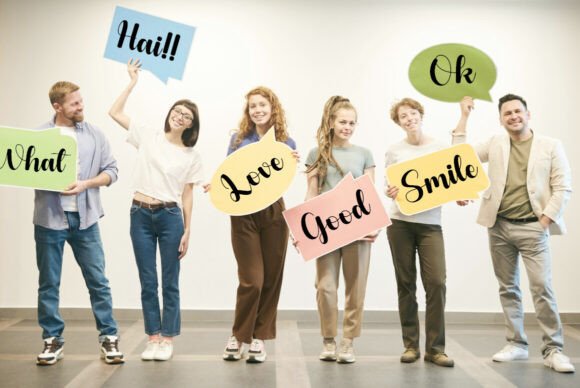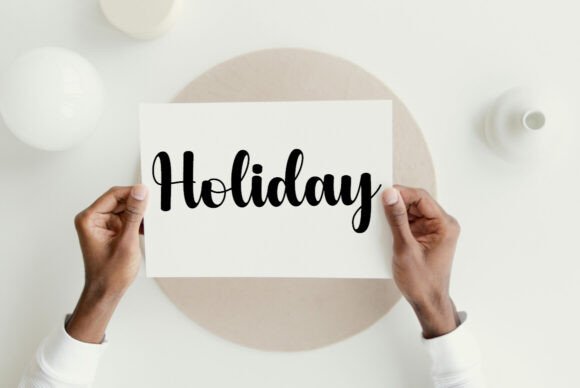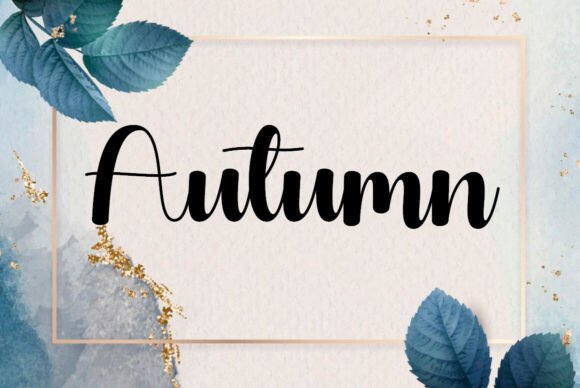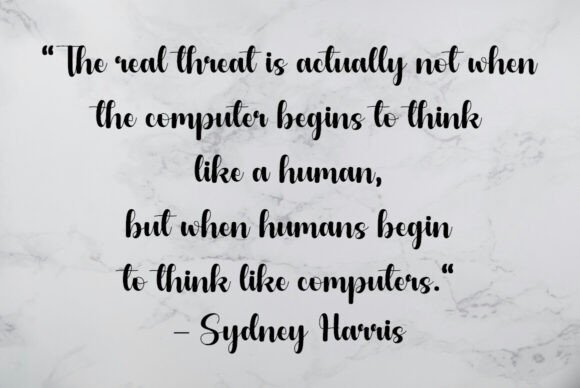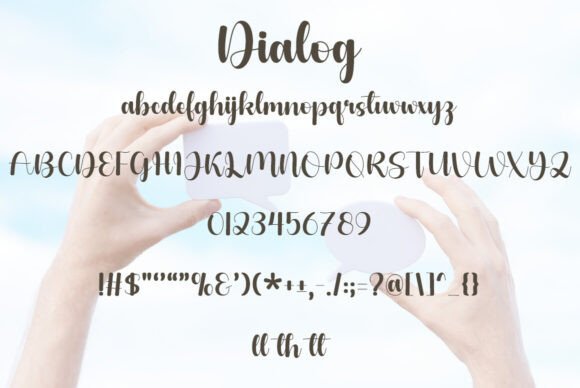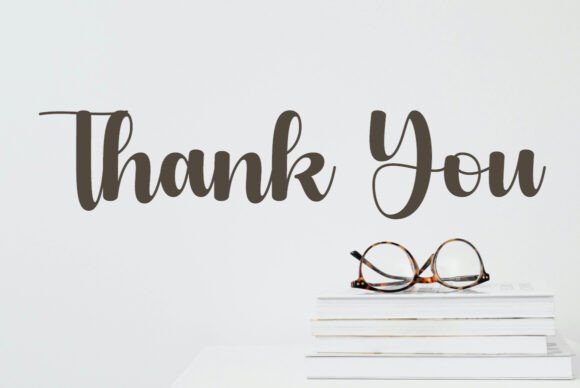
Introducing Dialog Font: The Sweet and Cursive Handwritten Font for Elegant Designs
Are you looking for a font that can add a touch of elegance and romance to your designs? Look no further than Dialog Font, a sweet and cursive handwritten font that is perfect for a variety of design projects. With its gentle and flowing curves, Dialog Font is sure to make your designs stand out and leave a lasting impression.
What Makes Dialog Font Special?
Dialog Font is a unique and beautiful font that is designed to add a joyful and romantic touch to your designs. Its cursive and handwritten style gives it a personal and elegant feel that is perfect for a range of design projects, from branding and logos to wedding invitations and greeting cards.
One of the key features of Dialog Font is its versatility. It can be used for a wide range of design ideas, including:
- Branding and logos: Add a touch of elegance and sophistication to your brand with Dialog Font.
- Wedding things: Make your wedding invitations, decorations, and other materials truly special with this beautiful font.
- Greeting cards: Add a personal and romantic touch to your greeting cards with Dialog Font.
- Fashion and lookbook: Use Dialog Font to add a touch of glamour and style to your fashion designs and lookbooks.
- Marketing promotion: Make your marketing materials stand out with this elegant and eye-catching font.
Why Choose Dialog Font?
There are many reasons why Dialog Font is the perfect choice for your design projects. Here are just a few:
- Elegant and sophisticated: Dialog Font has a elegant and sophisticated feel that is perfect for designs that need to look high-end and luxurious.
- Versatile: This font can be used for a wide range of design projects, from branding and logos to wedding invitations and greeting cards.
- Easy to read: Despite its cursive style, Dialog Font is easy to read and understand, making it perfect for designs that need to communicate a message.
- Unique: Dialog Font has a unique and distinctive style that will make your designs stand out from the crowd.
How to Use Dialog Font in Your Designs
- Use it for headings and titles: Dialog Font is perfect for headings and titles, where its elegant and cursive style can really shine.